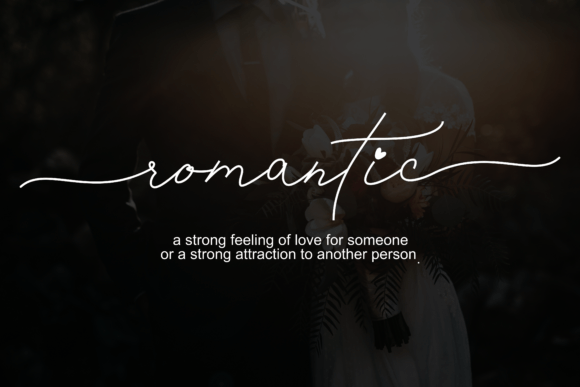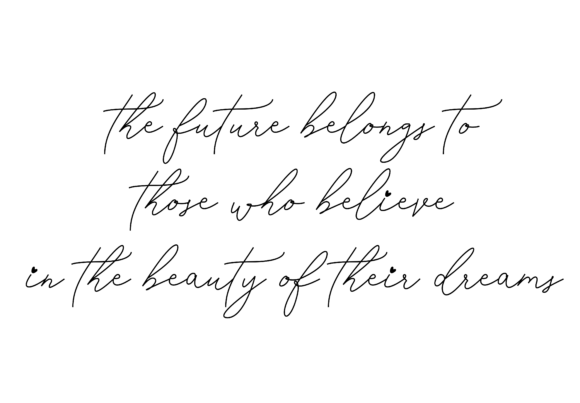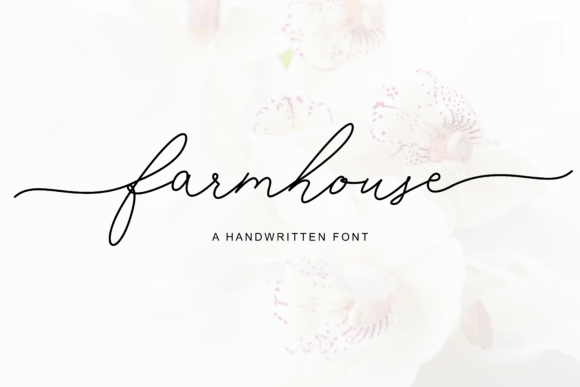
Discover the Charm of Farmhouse Font: Elevate Your Designs with Elegance
Step into the entrancing universe of “Farmhouse,” a strikingly sleek and minimalist script font that oozes undeniable allure. This beautiful font is perfect for designers and crafters looking to add a touch of class and sophistication to their creations. In this article, we’ll explore the captivating adaptability of the Farmhouse font and how it can become your perfect ally in fashioning truly magnificent designs.
The Elegance of Farmhouse Font
The elegant lettering of Farmhouse lends a touch of class to your wedding invitations, infuses grace into your stationery creations, and adds a unmistakable enchantment to your social media posts. Its sleek and minimalist design makes it an ideal choice for designers who want to create modern and sophisticated designs. Whether you’re working on a wedding invitation, a branding project, or a social media campaign, Farmhouse font is sure to impress.
Unleash Your Creativity with Farmhouse Font
Beyond its visual appeal, Farmhouse exudes a unique vibe, effortlessly uplifting your designs into works of art. This font is not just a simple script font; it’s a design element that can transform your creations into something truly special. With Farmhouse font, you can:
- Create stunning wedding invitations that set the tone for a memorable event
- Design elegant stationery that reflects your personal style
- Add a touch of sophistication to your social media posts and make them stand out
- Develop a unique brand identity that resonates with your audience
The Adaptability of Farmhouse Font
One of the most significant advantages of Farmhouse font is its adaptability. This font can be used in a variety of design projects, from traditional print designs to digital applications. Its versatility makes it an excellent choice for designers who want to create cohesive designs across different platforms.
Whether you’re working on a:
- Wedding invitation
- Stationery set
- Social media campaign
- Branding project
Farmhouse font can be easily integrated into your design to add a touch of elegance and sophistication.
Why Choose Farmhouse Font?
So, why choose Farmhouse font over other script fonts? Here are a few reasons:
- Unique Design: Farmhouse font has a unique and distinctive design that sets it apart from other script fonts.
- Elegance: Its elegant lettering makes it perfect for designs that require a touch of sophistication.
- Adaptability: Farmhouse font can be used in a variety of design projects, from traditional print designs to digital applications.
- Easy to Use: This font is easy to use and can be easily integrated into your designs.
Here are a few tips for using Farmhouse font in your designs:
- Pair it with a sans-serif font: Pairing Farmhouse font with a sans-serif font can create a beautiful contrast and add visual interest to your design.
- Use it sparingly: Use Farmhouse font sparingly to add a touch of elegance to your design. Overusing it can make your design look cluttered.
- Experiment with different colors: Experiment with different colors to find the perfect combination that works for your design.
In conclusion, Farmhouse font is a beautiful and elegant script font that can add a touch of sophistication to your designs. Its unique design, adaptability, and ease of use make it an excellent choice for designers and crafters. Whether you’re working on a wedding invitation, a branding project, or a social media campaign, Farmhouse font is sure to impress. So, why not give it a try and see how it can elevate your designs to the next level?